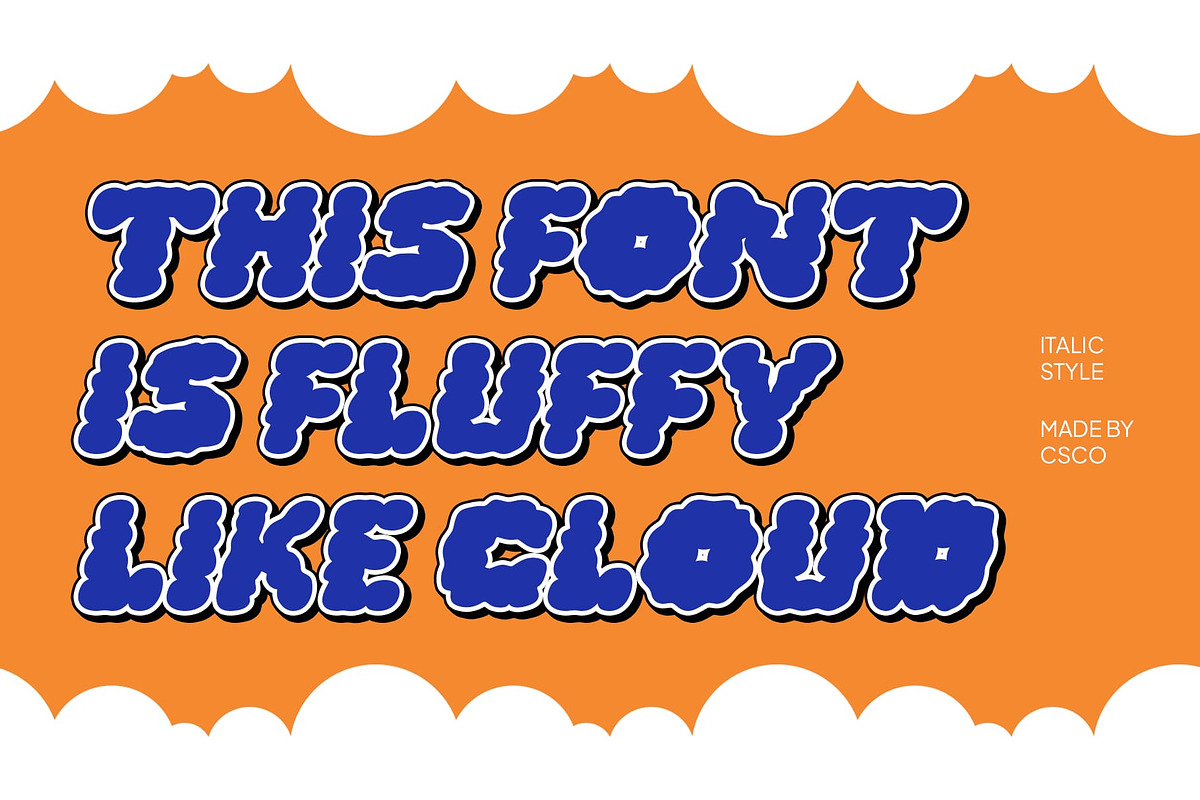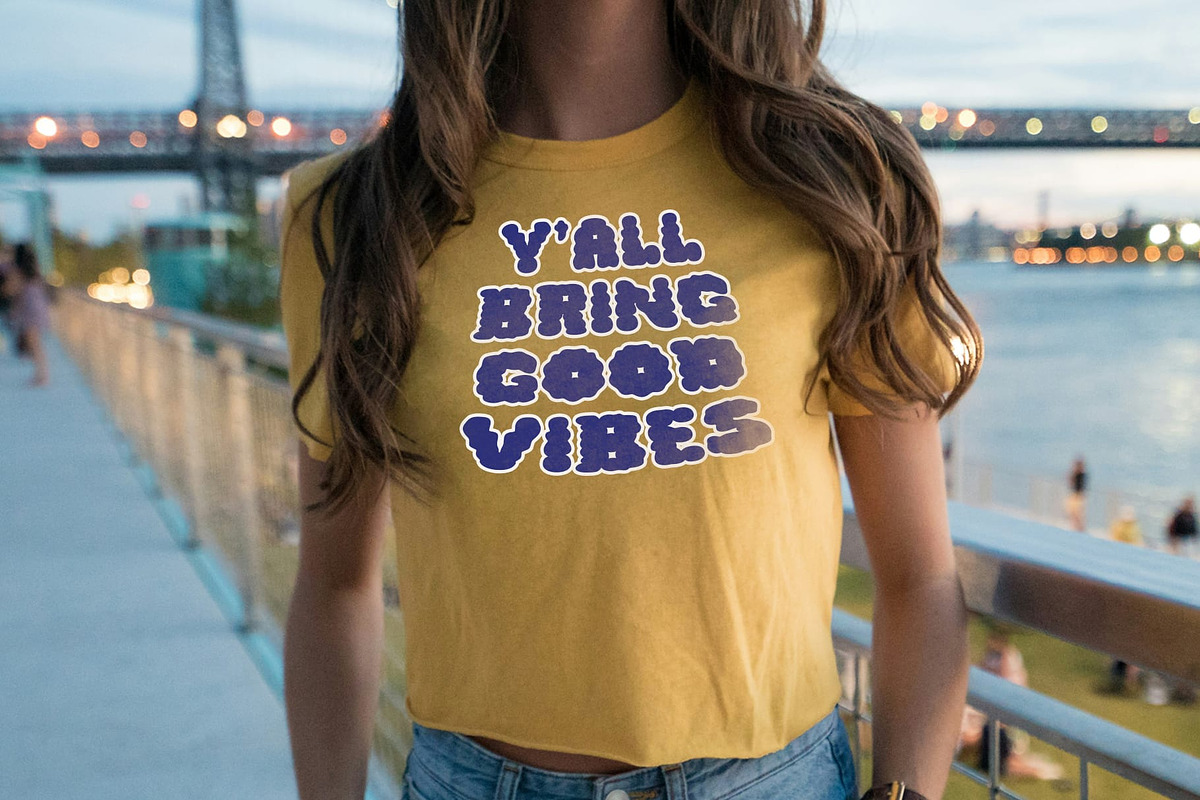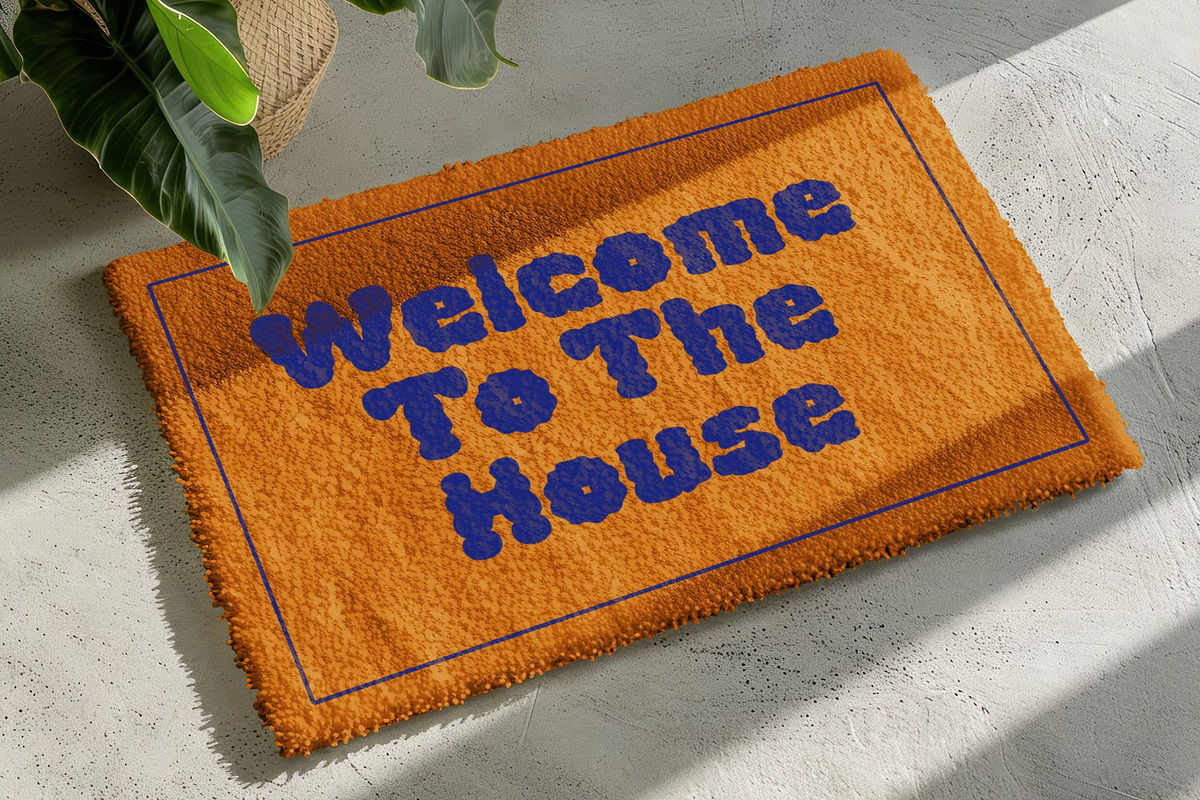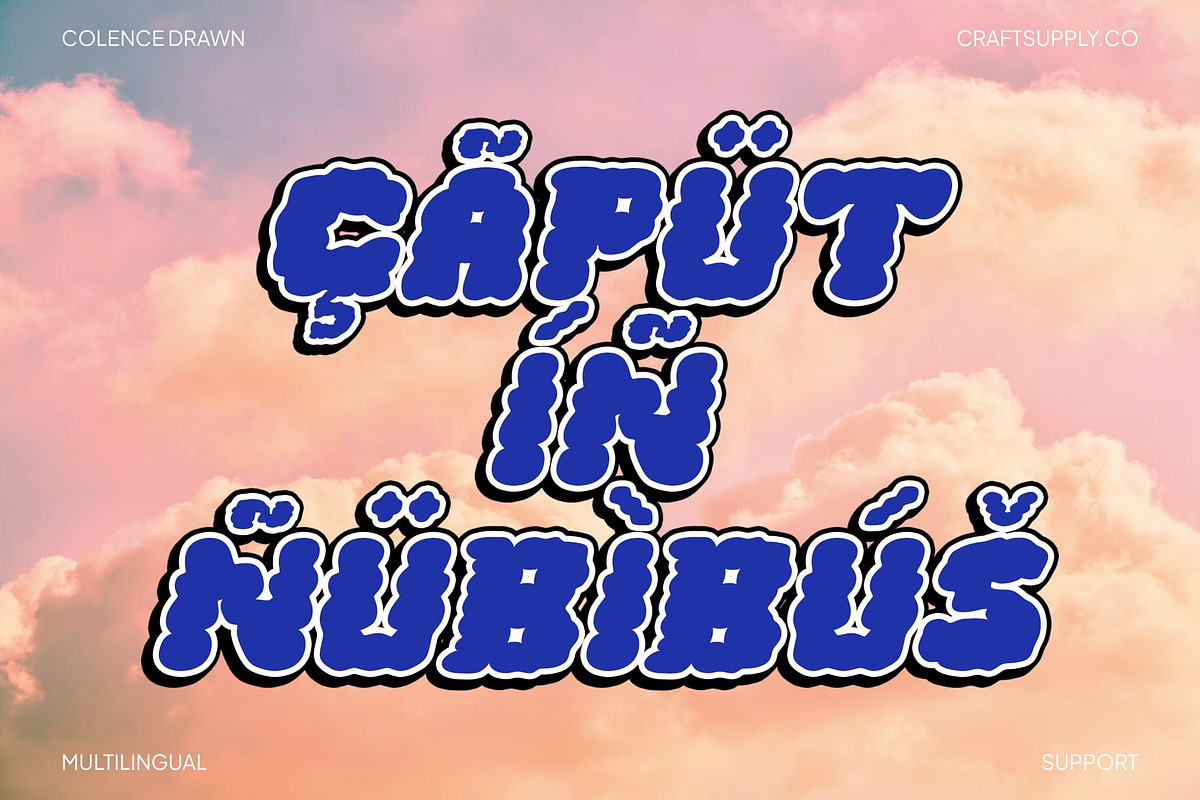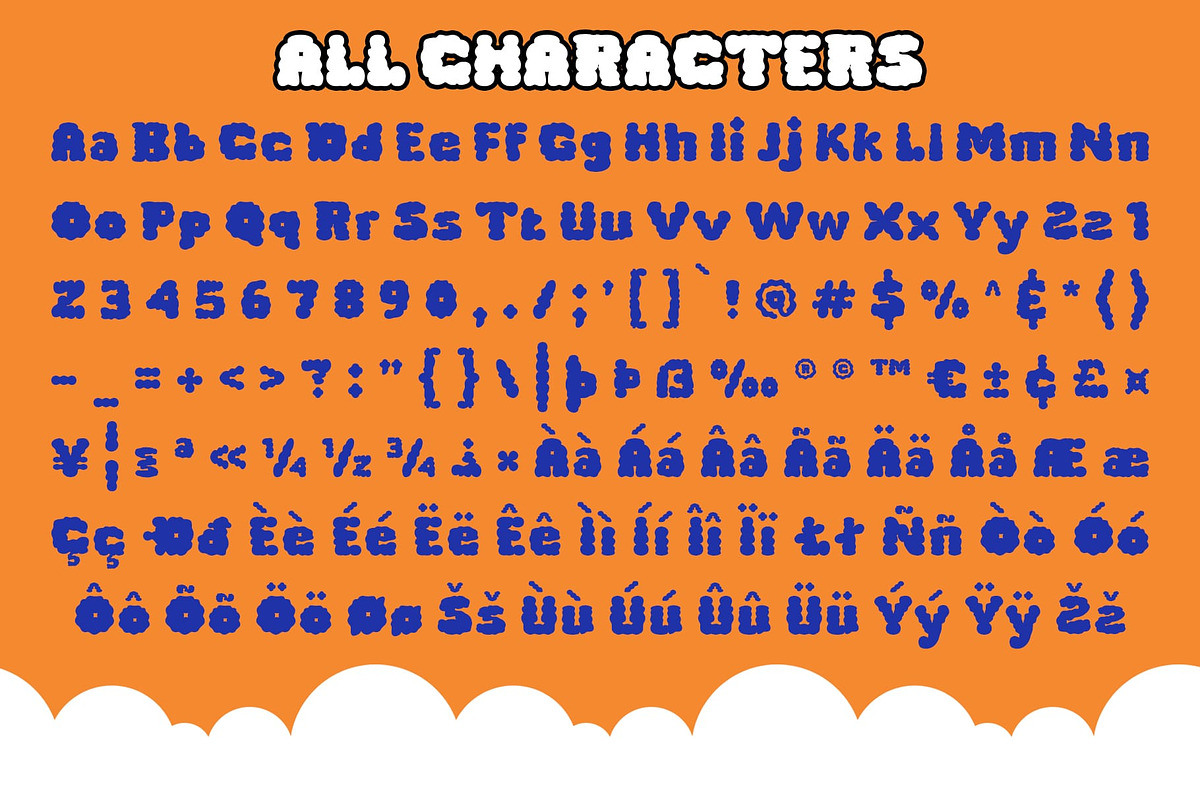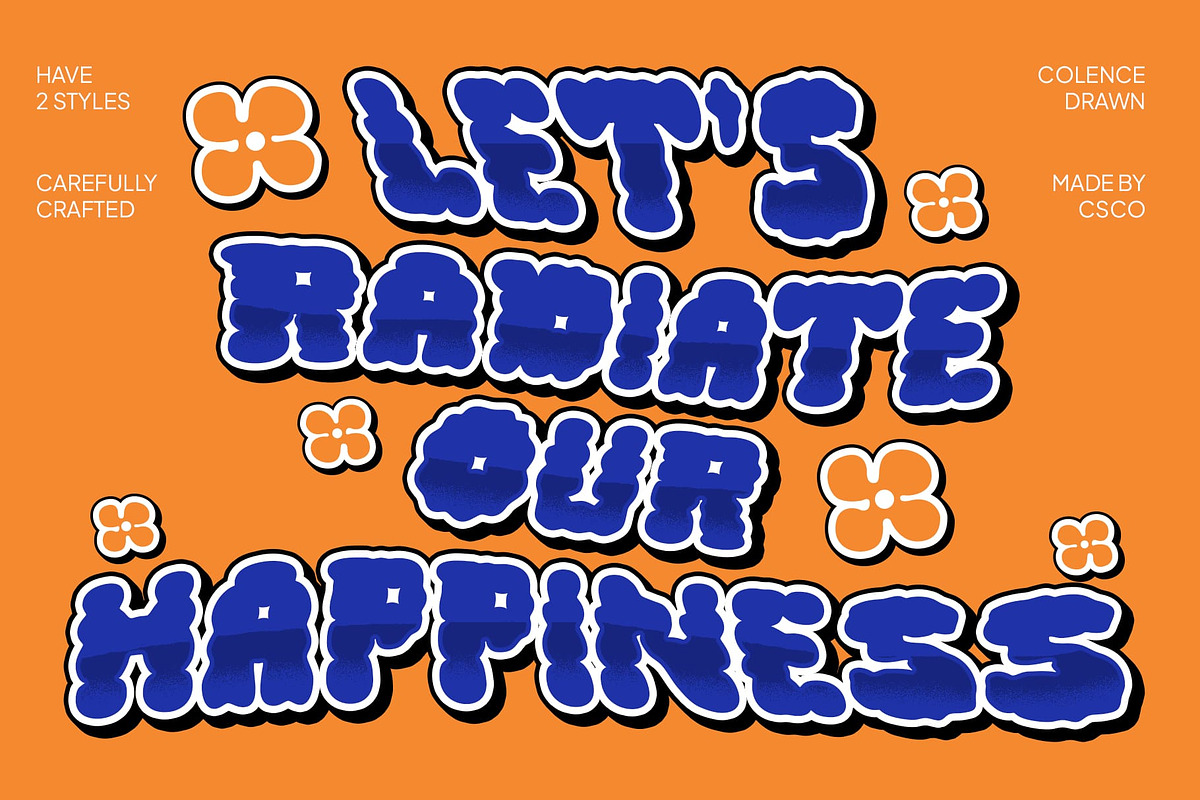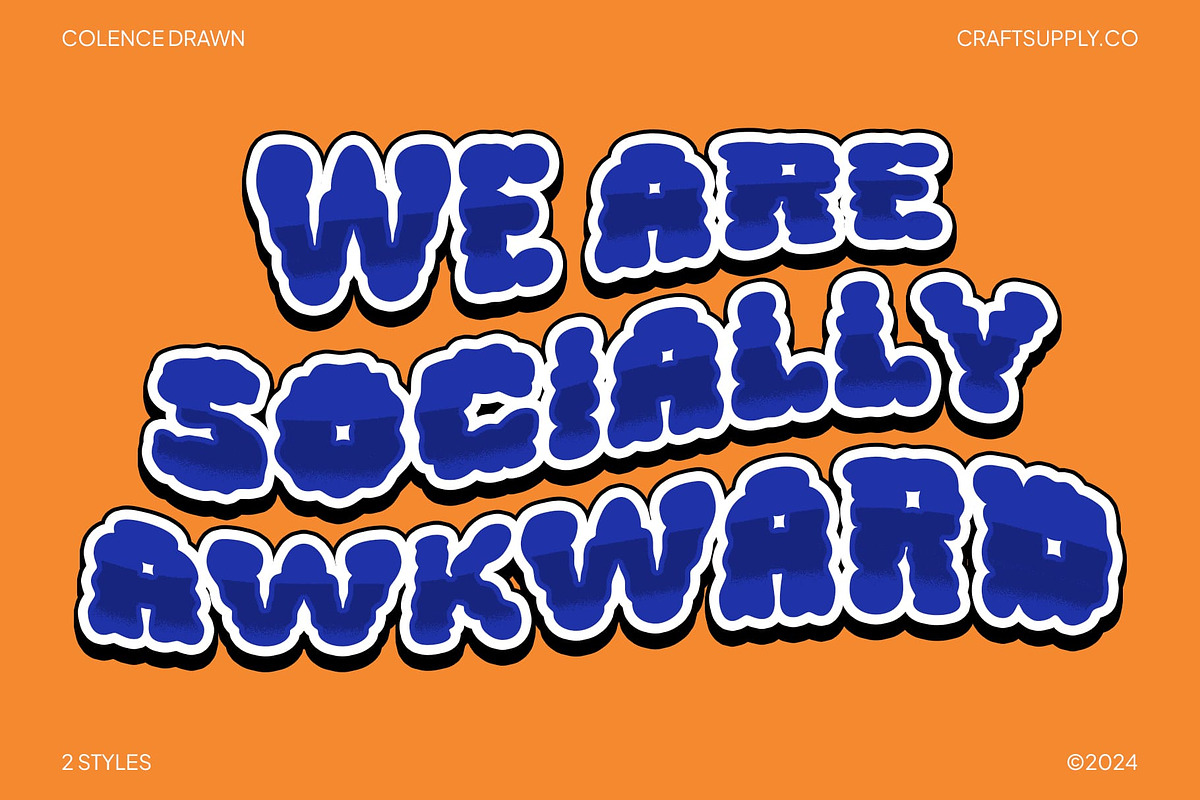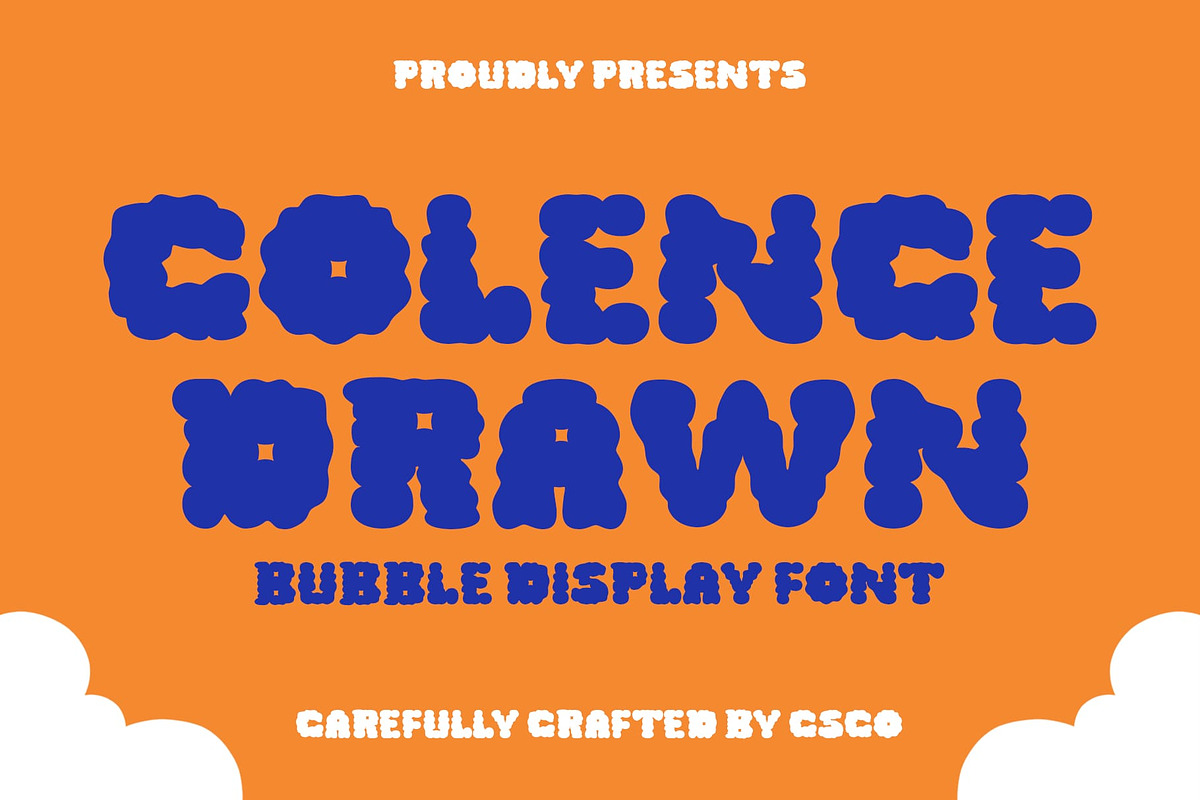
Colence Drawn
Colence Drawn – Bubble-Shaped Display Font
Cute and Funky Cloud-Like Design Colence Drawn is a bubble-shaped display font that captures a playful and imaginative essence with its soft, round letters reminiscent of fluffy clouds. Its design exudes a cute and funky vibe, perfect for adding a touch of whimsy and fun to any project. The rounded letterforms contribute to a cheerful and inviting appearance, making it ideal for designs that aim to delight and engage.
Artistic Drawn Effect The drawn effect of Colence Drawn introduces a manual, artistic touch that enhances the font’s unique and playful character. This artistic detail adds a personal and hand-crafted quality, giving the font a distinctive and charming appeal. The combination of bubble shapes and the drawn effect results in a font that stands out with its creative and joyful atmosphere.
Ideal for Fun and Creative Projects Colence Drawn is perfect for projects that require a burst of color and fun. Its imaginative design makes it an excellent choice for vibrant posters, whimsical greeting cards, and creative branding efforts. Whether you’re designing materials that aim to capture attention and spread cheer or creating playful visuals that evoke a sense of joy, Colence Drawn brings a lively and engaging touch to your designs.